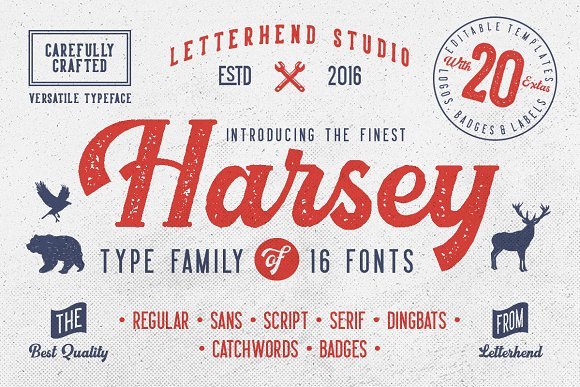
Harsey Type Family
Hi, introducing a vintage typeface. It is the best free font package available today. If you are looking for fonts for your logo design project, classic style, this typeface is good for you. Introducing Harsey Font Family. This product consist of many styles such as script, sans, serif, and also includes dingbats, catchwords and badges all comes in font format. This product is also includes 20 premade badges / labels which all elements are still editable so you can simply create your own in just a sec. What makes this product even more special is you can use and combine all these fonts perfectly matched altogether.